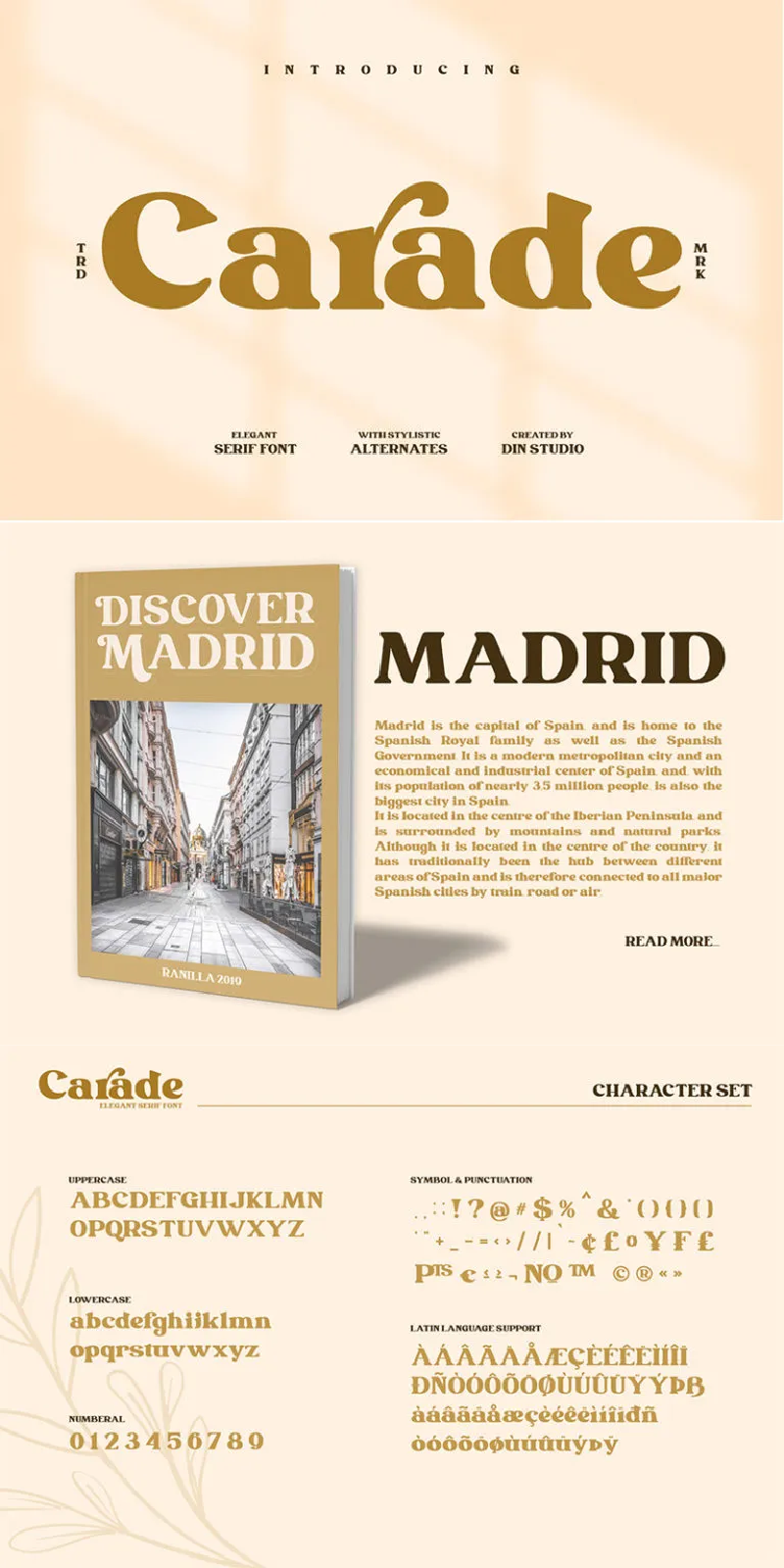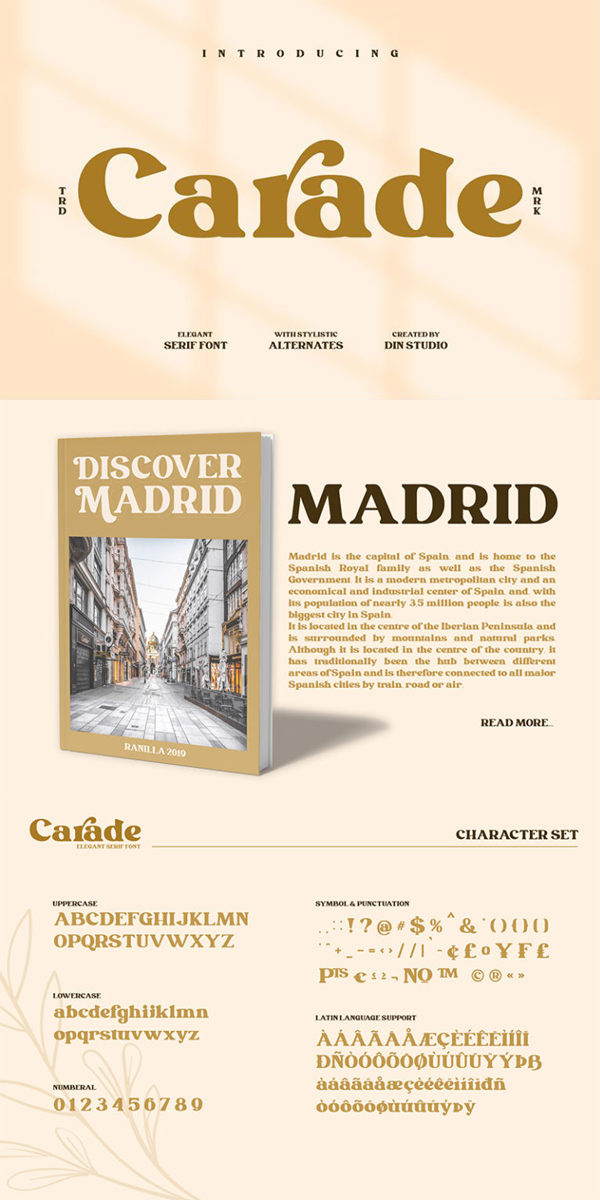
Carade Font
About Carade
Elegant Serif Font – Carade
It is an elegant serif font made for any professional project brandings. It is best used for logos, cards, packaging, advertisements, brandings and quotes. Every letter has a unique and beautiful touch. See the previews above to get some inspiration on how you can use them. Happy Designing!
-Beautiful Alternates